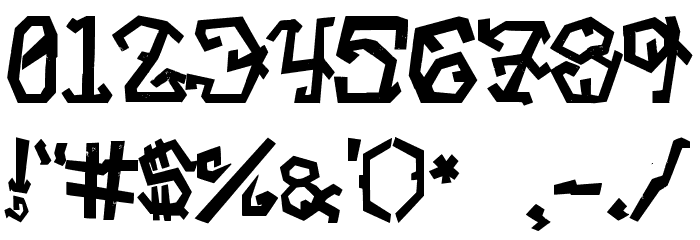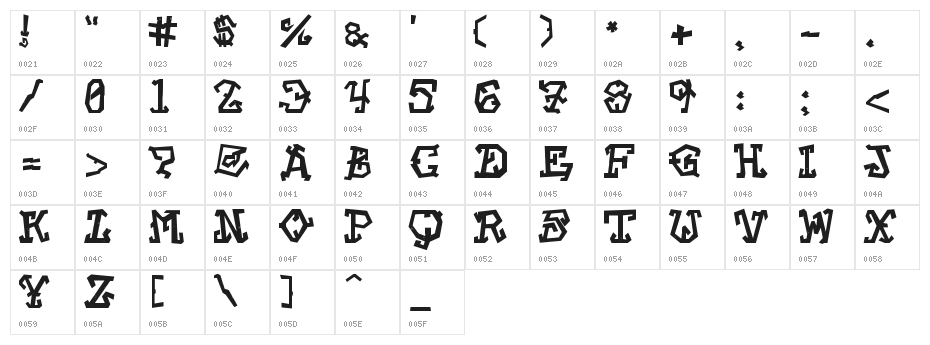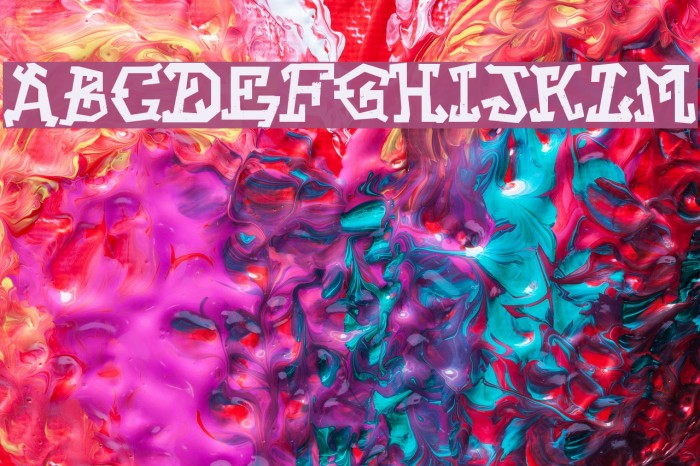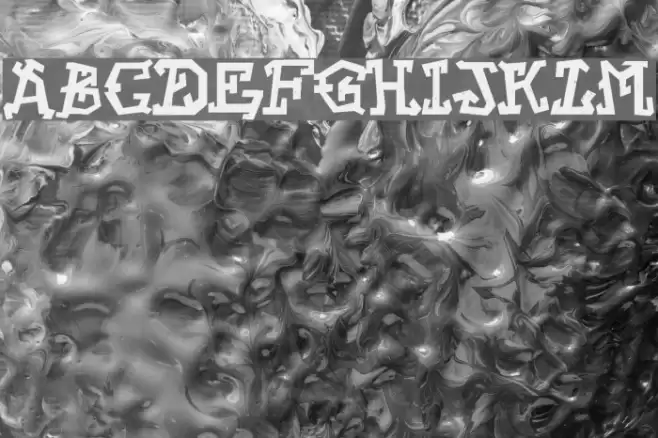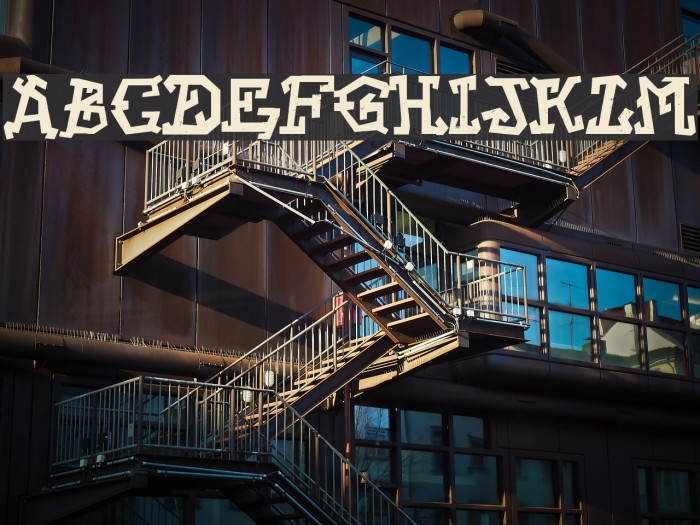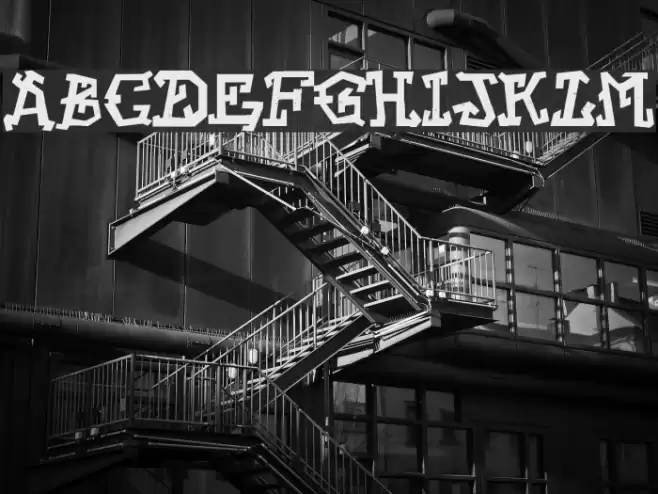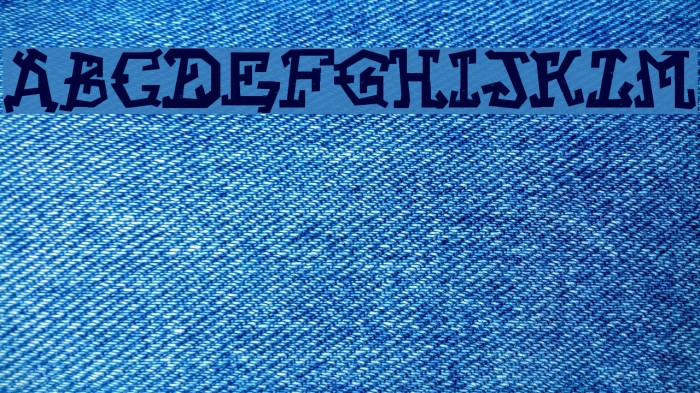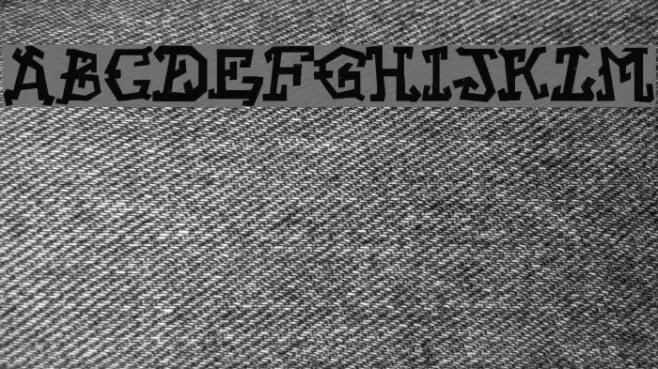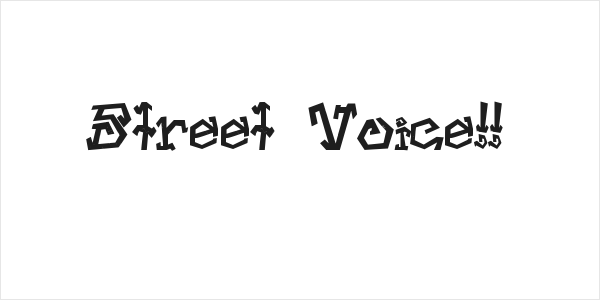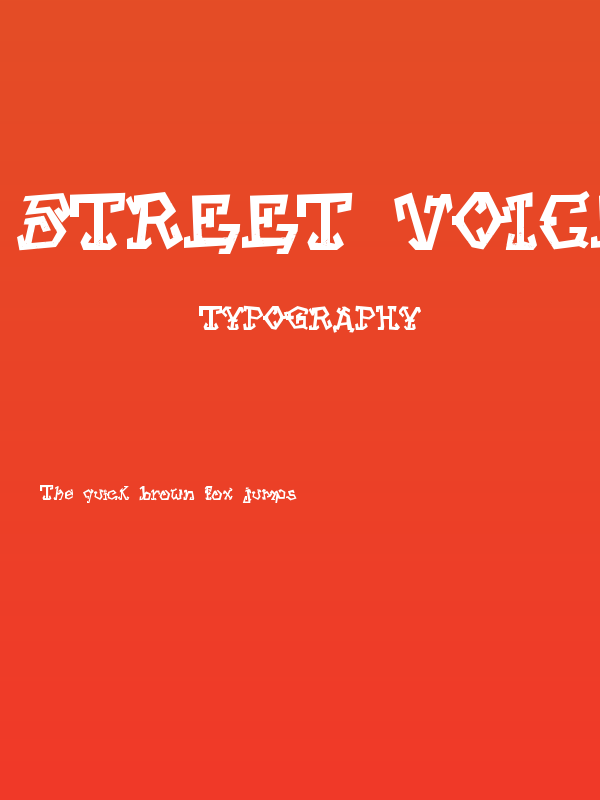
Street Voice!! Font
Street Voice!! Description
This font features a bold, edgy design with a graffiti-inspired aesthetic. The characters are angular and jagged, giving off a rebellious and urban vibe. The uppercase and lowercase letters maintain a consistent style, with sharp edges and a slightly chaotic arrangement. Numbers and special characters follow the same theme, ensuring a cohesive look across all elements. This font is perfect for projects that aim to capture a street art or punk rock feel, with its striking and unconventional appearance.
| Overall Style | Urban, Edgy, Rebellious |
| Proposed Projects | Ideal for street art designs, punk rock album covers, urban-themed posters, and edgy branding projects. |